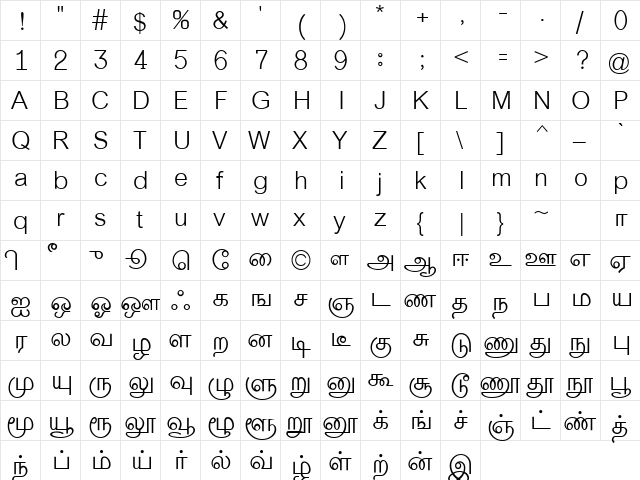
TheneeUniTx Regular
| Foundry | A. Umar |
Design Context for TheneeUniTx Typeface
TheneeUniTx offers clean, dependable letterforms without strong stylistic allegiance, making it a practical choice for designers who need flexibility.